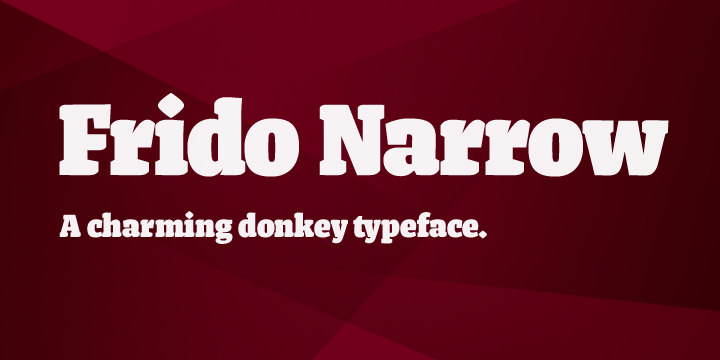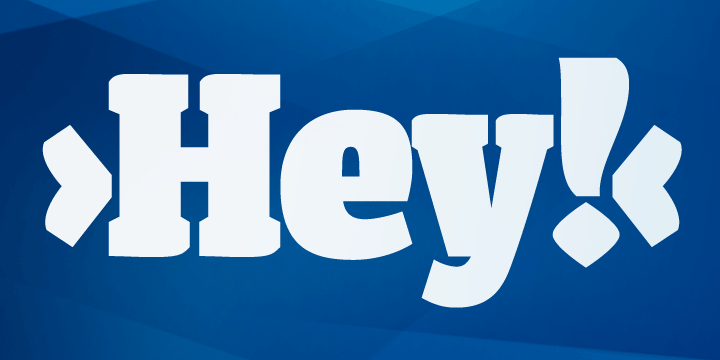
Frido Narrow
Frido Narrow is a display font published by Gunnar Link.
Frido Narrow is the younger brother (or sister) of „Frido Black“, which was released half a year ago.
Both typefaces are rather donkeys, than workhorses.
Their main aim is to give messages a friendly and warm typografic form.
Due to the fact that Frido Black couldn’t meet all my considered tasks, I decided to revise it.
What came out is Frido Narrow.
A narrowed version of Frido Black with decreased white space within and between the letters.
Frido Narrow is the younger brother (or sister) of „Frido Black“, which was released half a year ago. Both typefaces are rather donkeys, than workhorses. Their main aim is to give messages a friendly and warm typografic form. Due to the fact that Frido Black couldn’t meet all my considered tasks, I decided to revise it. What came out is Frido Narrow. A narrowed version of Frido Black with decreased white space within and between the letters. Some letterforms were partly redrawn and a few ligatures and glyphs were added (e.g. the long-s for historical typo- grafic tasks).